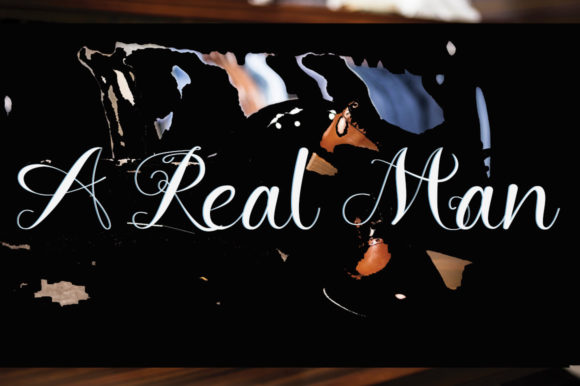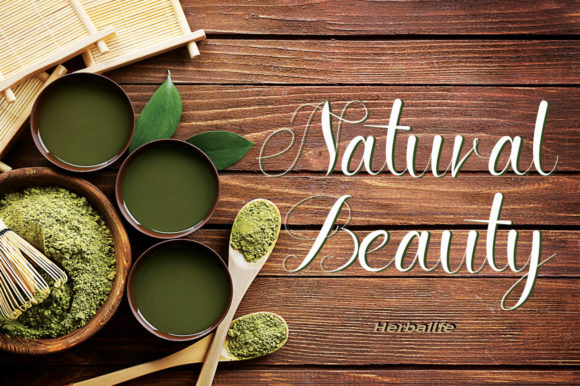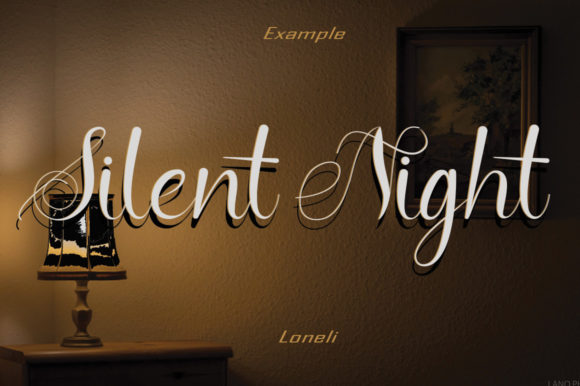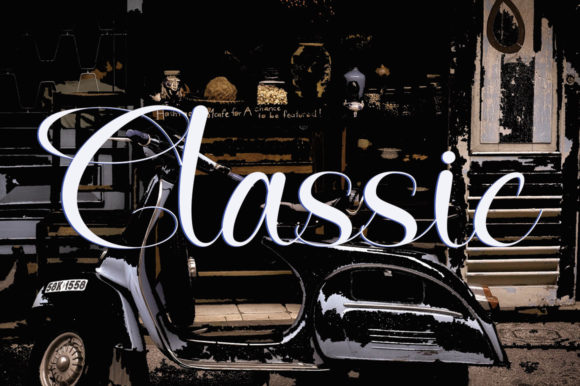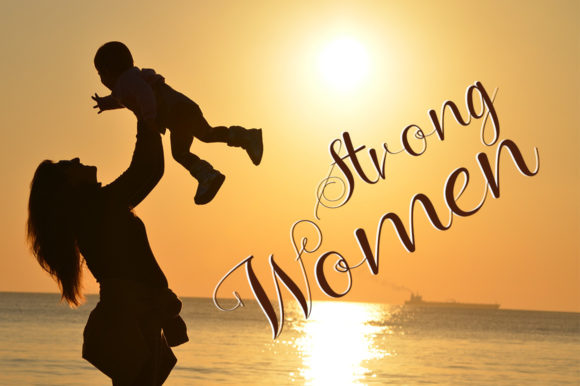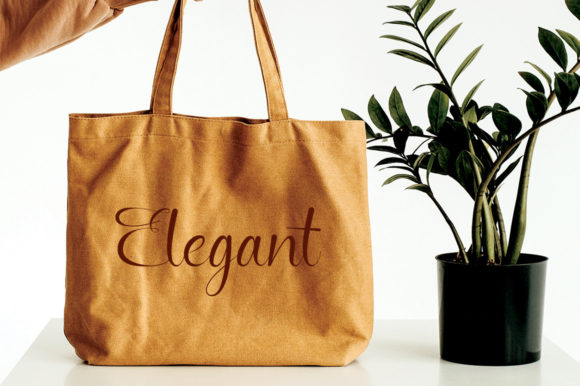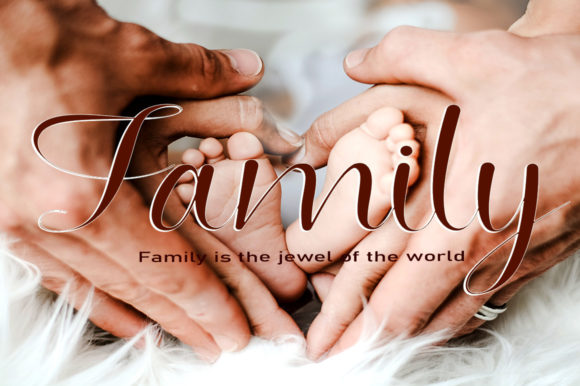
Introducing Family Font: Elevate Your Designs with Elegance and Sophistication
Are you a designer, crafty enthusiast, or business owner looking for a font that exudes high-quality vibes and sophistication? Look no further than Family Font, an exquisite script font designed to elevate your creations and make them stand out from the crowd. In this article, we’ll dive into the world of Family Font, exploring its features, uses, and benefits, and why it’s a must-have addition to your font library.
What is Family Font?
Family Font is a beautifully crafted script font, perfect for a wide range of applications, including product packaging, invitation cards, t-shirt screen printing, shop names, event posters, and more. Its elegant and refined design makes it an ideal choice for designers and crafters seeking to add a touch of sophistication to their work.
Key Features of Family Font
- Exquisite Design: Family Font boasts an intricate and beautiful design, with flowing lines and delicate curves that add a touch of elegance to any project.
- High-Quality Vibes: This font is specifically designed to convey a sense of high-quality and sophistication, making it perfect for brands and businesses looking to establish a premium image.
- Versatility: Family Font is incredibly versatile, suitable for a wide range of applications, from product packaging to digital designs.
- Easy to Read: Despite its ornate design, Family Font remains easy to read, making it perfect for body text, headings, and titles.
Uses of Family Font
Family Font is an incredibly versatile font, suitable for a wide range of applications, including:
- Product Packaging: Add a touch of elegance to your product packaging and make your brand stand out on store shelves.
- Invitation Cards: Create beautiful and sophisticated invitation cards for weddings, parties, and other special events.
- T-Shirt Screen Printing: Design stunning t-shirts with Family Font, perfect for fashion brands, events, or promotional items.
- Shop Names: Create eye-catching shop names and signage that reflect your brand’s personality and style.
- Event Posters: Design captivating event posters that grab attention and convey the tone of your event.
Benefits of Using Family Font
By incorporating Family Font into your design library, you’ll enjoy a range of benefits, including:
- Unique and Distinctive Designs: Family Font’s elegant design will help you create unique and distinctive designs that set you apart from the competition.
- Professional and Sophisticated Look: This font will add a touch of professionalism and sophistication to your designs, perfect for brands and businesses seeking to establish a premium image.
- Increased Brand Recognition: By using Family Font consistently across your designs, you’ll create a cohesive brand identity that reinforces your brand’s values and personality.
In conclusion, Family Font is an exquisite script font that offers a world of creative possibilities for designers, crafters, and businesses. Its elegant design, versatility, and high-quality vibes make it an essential addition to any font library. Whether you’re looking to create stunning product packaging, beautiful invitation cards, or captivating event posters, Family Font is the perfect choice. So why wait? Add Family Font to your design arsenal today and elevate your creations to new heights!